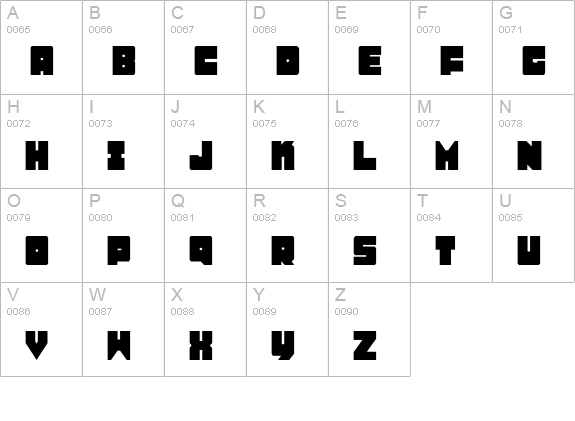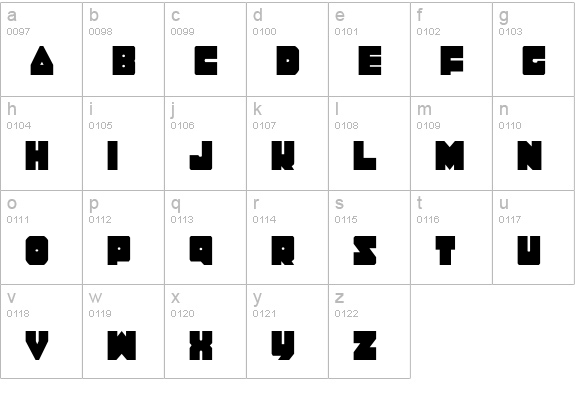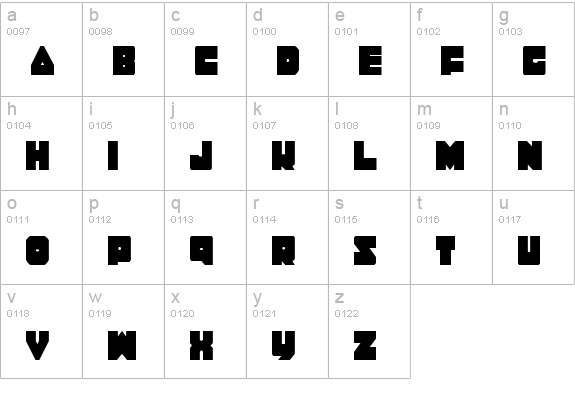
Lobo Tommy Condensed is a distinctive, condensed-width variant in the Lobo typeface family \xE2\x80\x94 well suited to design and typography projects.
Lobo Tommy Condensed font is a modern and stylish typeface that exudes sophistication and elegance. With its sleek and streamlined design, this font is perfect for creating eye-catching headlines, logos, and branding materials. The condensed style allows for a clean and polished look, making it ideal for both digital and print projects. What sets Lobo Tommy Condensed font apart is that it is completely free to download at FontsMarket.com. This means you can easily access this high-quality font and use it in your designs without any cost. Whether you're working on a personal project or a professional assignment, Lobo Tommy Condensed font is a versatile and attractive option that will elevate your designs to the next level. Download it today and experience the beauty and flexibility of this exceptional font.